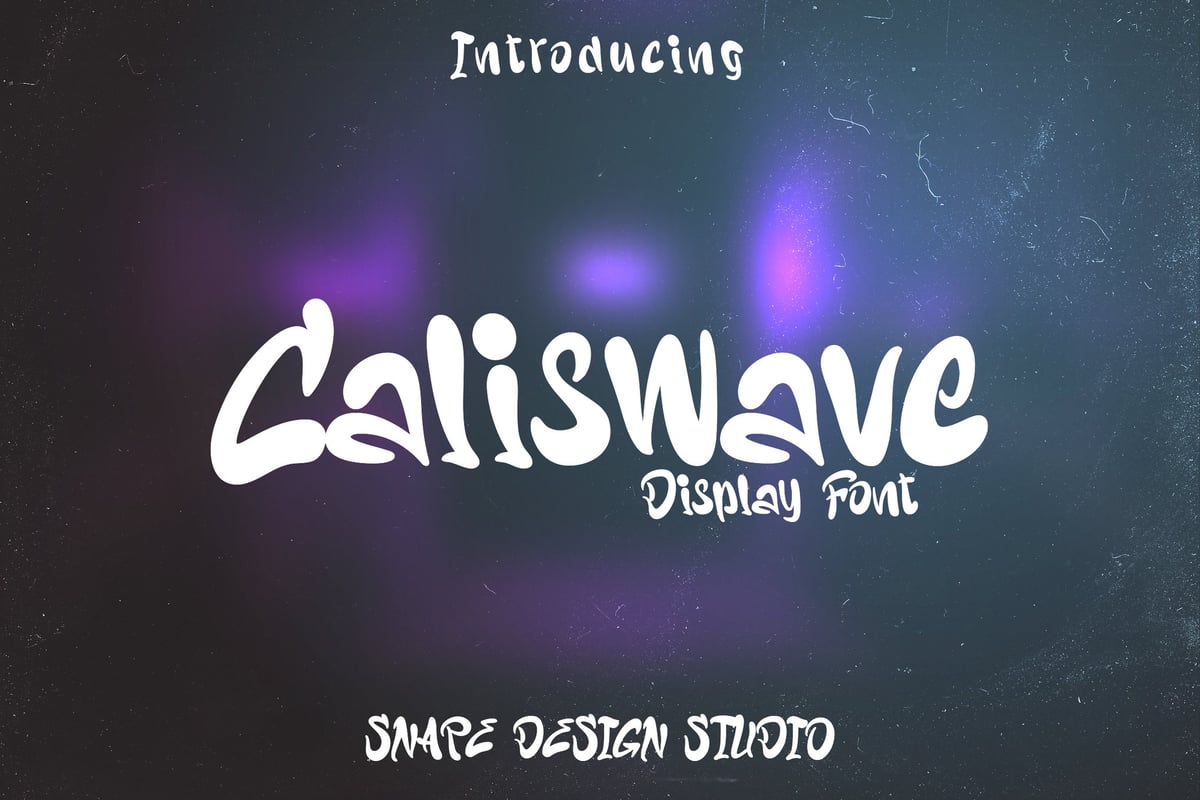
Caliswave - Display Font
Create stunning futuristic designs with CALISWAVE's unique liquid-inspired letterforms that command attention. This distinctive display font draws inspiration from cutting-edge futuristic liquid design aesthetics, making it the perfect choice for projects that demand a modern, forward-thinking visual identity. CALISWAVE excels in movie productions, documentaries, films, logo design, posters, gaming projects, book covers, headlines, titles, and countless other creative applications. Transform you...